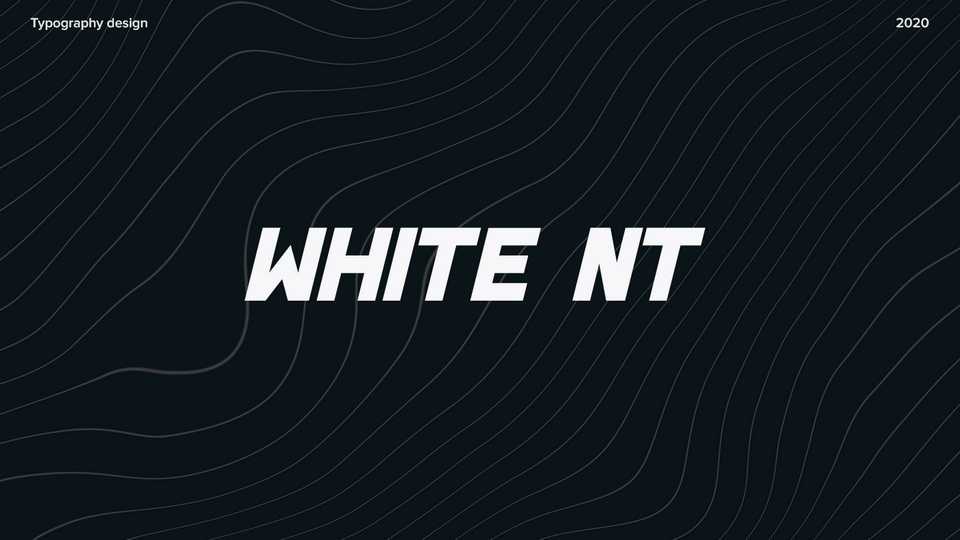
Download White NT font, a bold and dynamic display typeface. White NT has a power and easy visual readability, so it’s perfect for headlines, whether for sports events, automotive posters, logo or headlines design.